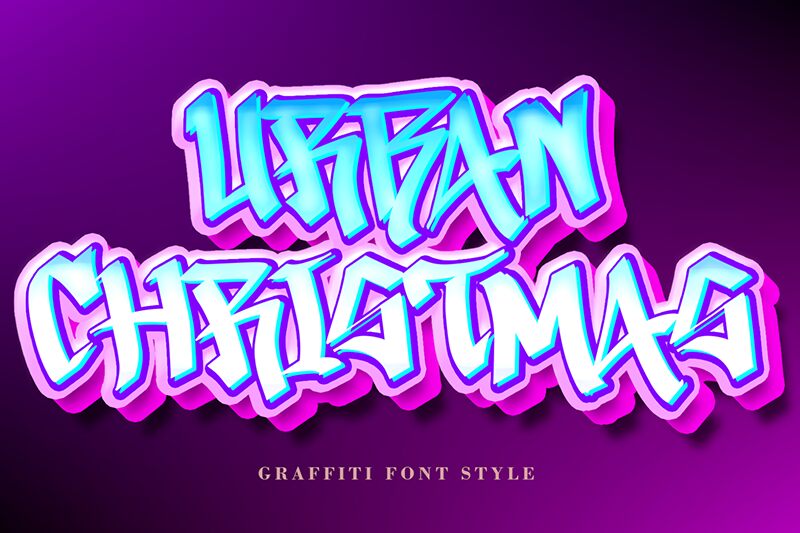
Urban Christmas font by Yoga Letter is an antique graffiti-styled ornament font that is beautiful and festive. It has similar Arabic, and strong Gothic influences that make it look elegant and ancient. Its decorative style reminds us of Middle Eastern scriptures with highly pronounced loops, curves, and curls. Each letter is given special attention with a unique pattern being dedicated to it.
Use Urban Christmas for free in design work related to events such as invitations, brochures, posters, or flyers. Publications like magazine covers and book titles will also be great users of the distinctive font. Use the woven ornaments for certificates as well as paintings that rely on typography in artistic ways!